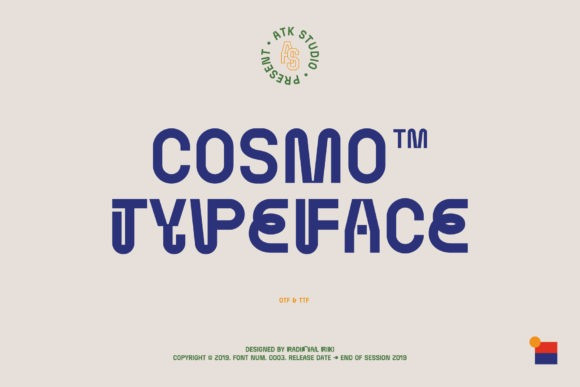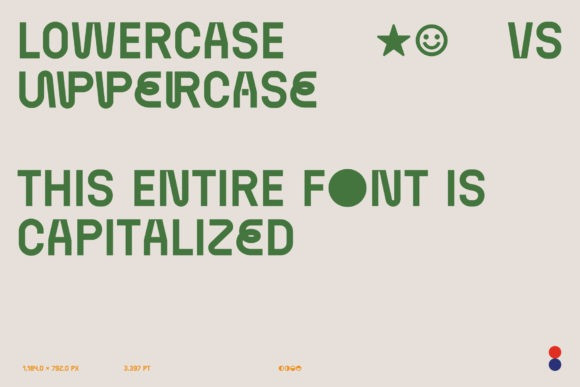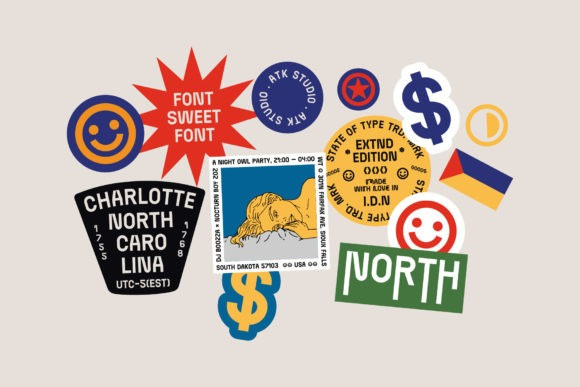
Cosmo Font
Cosmo is a cool and modern looking display font. It is suitable for logotype, headline font, in corporate identity, brand identity, apparel industry, poster, music, movie, game, magazine, book, comic, cartoon, YouTube, Instagram, website, or any of your creative design projects.